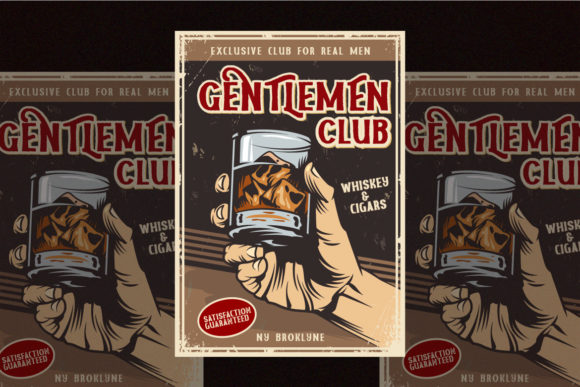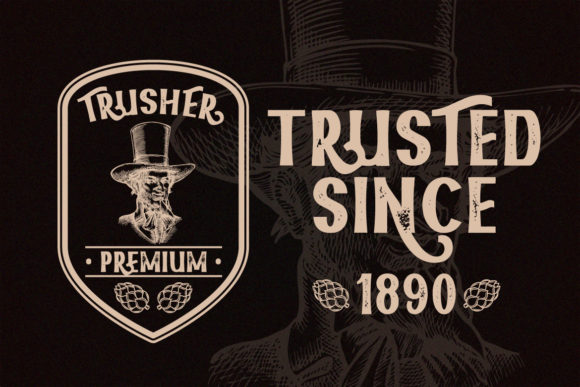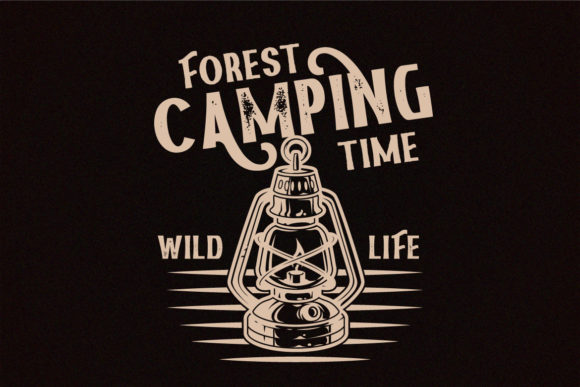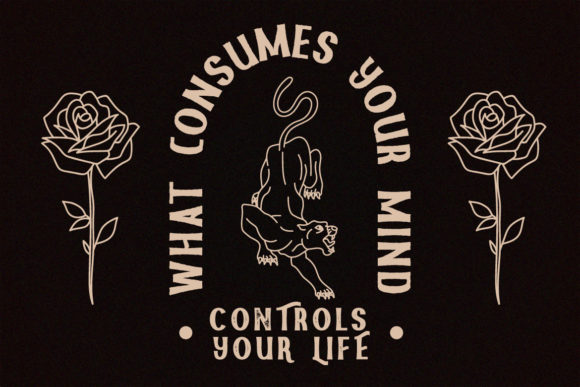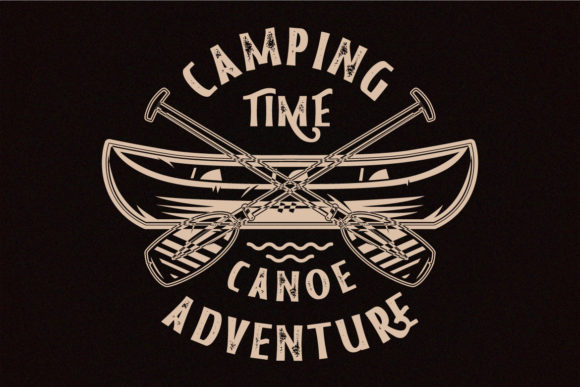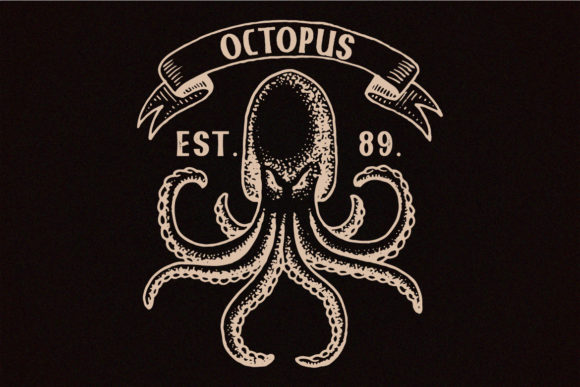
Bronxi Font: Elevate Your Designs with a Bold and Authentic Display Font
In the world of typography, a font can make or break a design. It’s the foundation upon which your creative ideas are built, and it can either elevate or detract from the overall visual impact. If you’re looking for a font that will add a touch of boldness and authenticity to your designs, look no further than Bronxi Font. In this article, we’ll explore the features and benefits of Bronxi, and how it can help take your designs to the next level.
What is Bronxi Font?
Bronxi is a bold and authentic display font designed to make your creative ideas stand out. With its unique and eye-catching design, Bronxi is perfect for designers and crafters looking to add a touch of personality to their work. Whether you’re working on a logo, brochure, or social media graphic, Bronxi is the perfect choice for anyone looking to make a statement.
Key Features of Bronxi Font
So, what sets Bronxi apart from other fonts? Here are some of its key features:
- Bold and Authentic Design: Bronxi has a bold and authentic design that’s perfect for making a statement. Its unique lettering and typography make it stand out from other fonts.
- Display Font: Bronxi is a display font, which means it’s designed to be used at larger sizes, making it perfect for headlines, titles, and other display text.
- Easy to Read: Despite its bold design, Bronxi is easy to read, even at smaller sizes. This makes it perfect for use in a variety of design applications.
- Versatile: Bronxi is a versatile font that can be used in a variety of design applications, from logos and branding to social media graphics and more.
Benefits of Using Bronxi Font
So, why should you choose Bronxi for your design projects? Here are some of the benefits of using Bronxi:
- Adds Personality to Your Designs: Bronxi adds a touch of personality to your designs, making them more engaging and memorable.
- Perfect for Making a Statement: With its bold and authentic design, Bronxi is perfect for making a statement and grabbing the attention of your audience.
- Increases Readability: Despite its bold design, Bronxi is easy to read, making it perfect for use in a variety of design applications.
- Versatile: Bronxi can be used in a variety of design applications, making it a great addition to any designer’s toolkit.
How to Use Bronxi Font in Your Designs
Using Bronxi in your designs is easy. Here are some tips to get you started:
- Use it as a Headline Font: Bronxi is perfect for use as a headline font, making it a great choice for titles, headings, and other display text.
- Pair it with Other Fonts: Bronxi can be paired with other fonts to create a unique and visually appealing design.
- Experiment with Different Sizes: Bronxi can be used at a variety of sizes, from small to large. Experiment with different sizes to find the one that works best for your design.
| Font Name | Bronxi Font |
| Author | Fallengraphic |
In conclusion, Bronxi Font is a bold and authentic display font that’s perfect for designers and crafters looking to add a touch of personality to their work. With its unique and eye-catching design, Bronxi is perfect for making a statement and grabbing the attention of your audience. Whether you’re working on a logo, brochure, or social media graphic, Bronxi is the perfect choice for anyone looking to elevate their designs and take them to the next level.